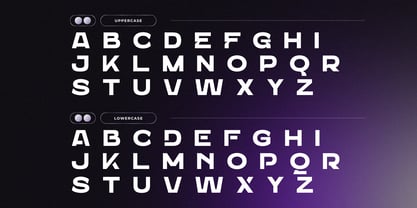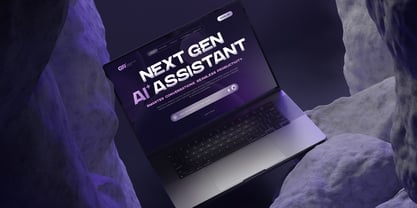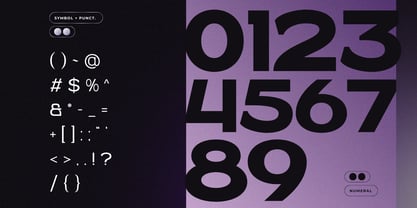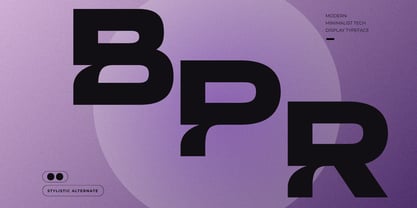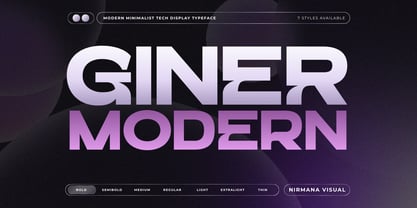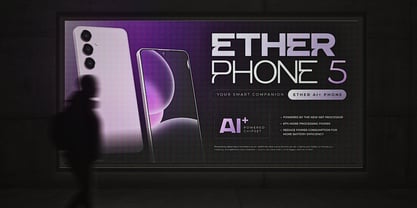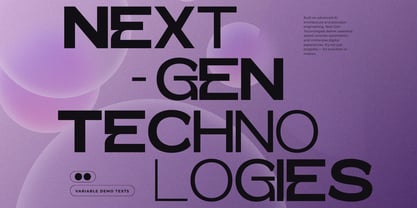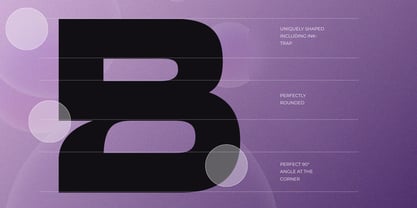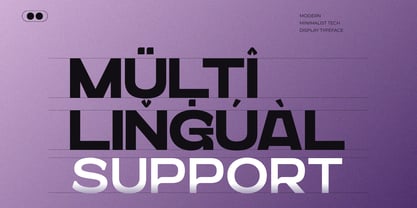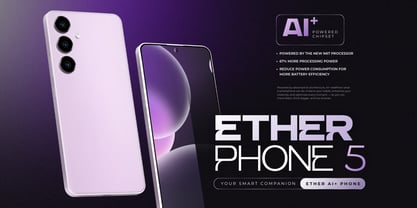
Giner Modern
by Nirmana Visual
The Giner Modern Font Family was designed by Sigit Dwipa and published by Nirmana Visual. Giner Modern contains 7 styles and family package options. More about this family
Giner Modern is a contemporary sans-serif font family designed for strong corporate branding and modern logo design. Built with clean geometry and balanced proportions, it delivers clarity, professionalism, and versatility across print and digital media. The family includes 7 weights—Thin, Extra Light, Light, Regular, Medium, Semi Bold, and Bold—allowing flexible hierarchy and consistent brand identity. Giner Modern brings a sleek, confident, and timeless look to corporate visuals, marketing materials, and brand systems.
Designers: Sigit Dwipa
Current Foundry: Nirmana Visual